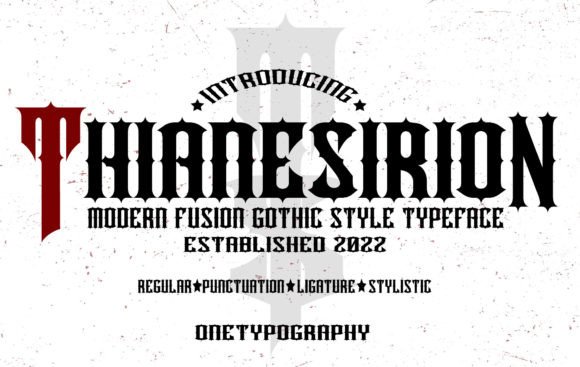
In a world where conformity stifles creativity, a font emerges from the depths of ingenuity, ready to unleash its dark, evocative charm. Thianesirion, a modern Gothic blackletter, defies convention, embracing a style that dances between elegance and mystery.
This is not just a font; it's a portal to another realm, a world where shadows hold secrets and whispers carry tales of old. Its bold strokes, reminiscent of ancient manuscripts, evoke a sense of forgotten lore, inviting you on a journey through time and imagination.
With Thianesirion, your designs will transcend the ordinary, taking on an aura of enchantment that captivates and bewitches. Unleash the power of this font and let your creativity soar to new heights.